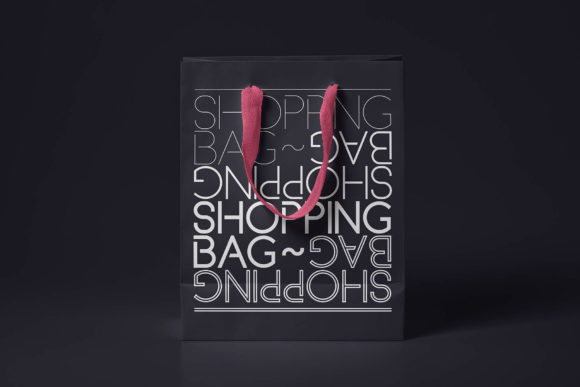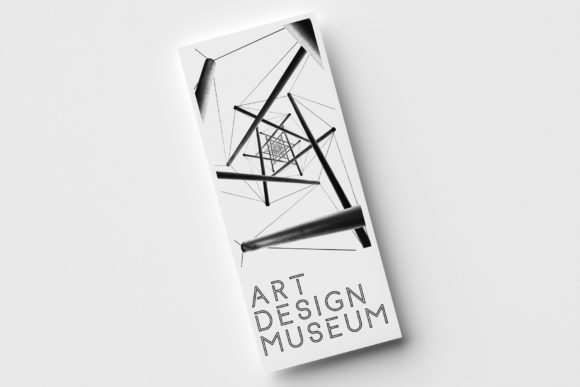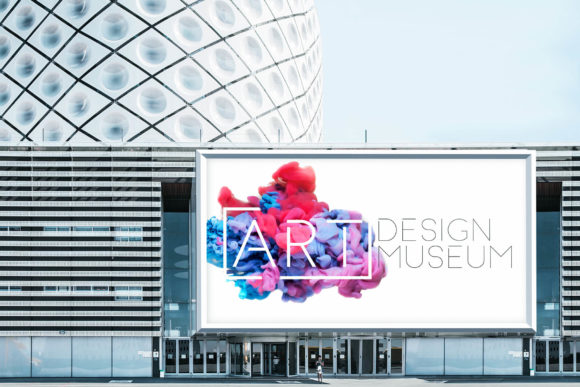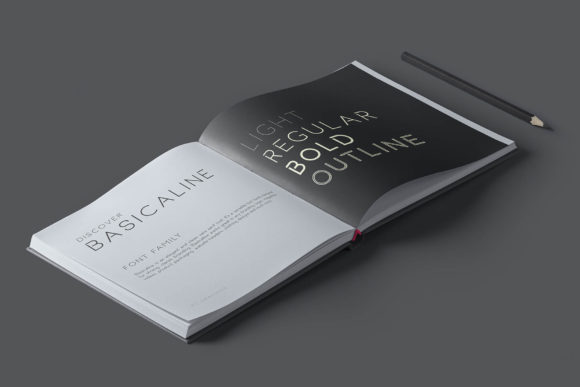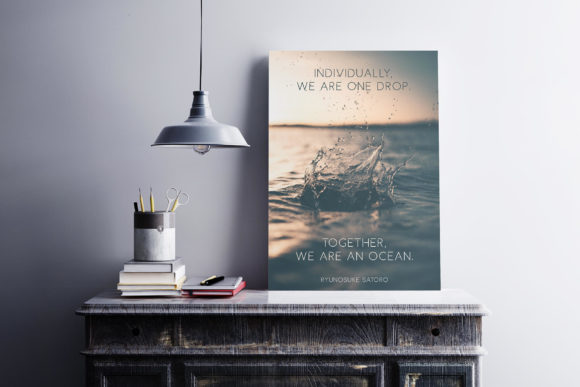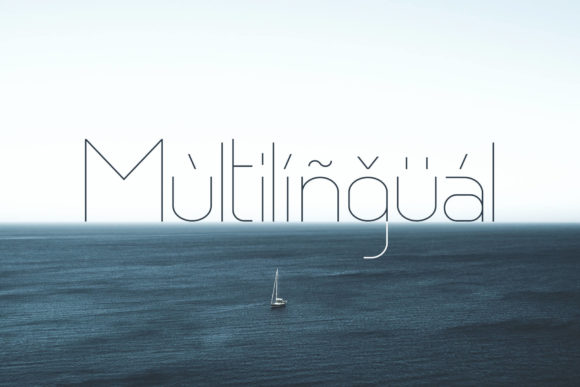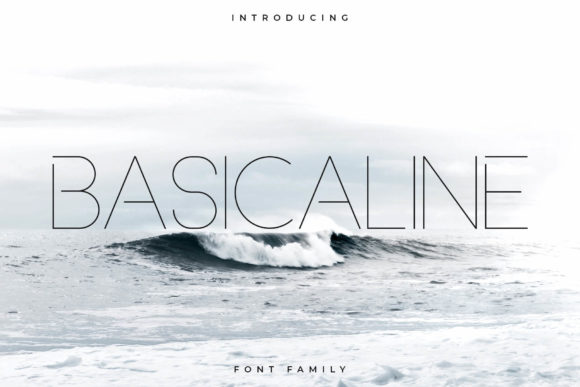
Discover the Elegance of Basicaline Font: A Modern Sans Serif Marvel
Are you on the hunt for a font that embodies simplicity, modernity, and a dash of coolness? Look no further than Basicaline Font. This stunning sans serif font is making waves in the design community, and for good reason. Its light, airy feel and sleek lines make it the perfect choice for designers and crafters looking to elevate their projects with a touch of elegance.
The Essence of Basicaline Font
Basicaline is more than just a font – it’s an experience. With its clean and minimalist design, this font exudes a sense of sophistication and refinement. Its modern sans serif style ensures that your text looks crisp and contemporary, making it ideal for a wide range of applications, from branding and advertising to packaging and digital media.
What Makes Basicaline Stand Out?
- Light and Airy Feel: Basicaline’s light weight makes it perfect for body text, ensuring that your content is easy to read without overwhelming the reader.
- Modern Sans Serif Style: The font’s sleek, modern design ensures that your text looks cutting-edge and current.
- Cool and Elegant: Basicaline’s unique blend of simplicity and sophistication gives it a cool, elegant feel that’s hard to resist.
- Highly Versatile: Whether you’re working on a branding project, creating packaging, or designing digital media, Basicaline is the perfect choice.
Inspiration from Simplicity
One of the most striking things about Basicaline is its ability to inspire creativity through simplicity. In an era where bold and elaborate designs often dominate, Basicaline proves that sometimes, less really is more. Its understated elegance can add a touch of sophistication to even the most straightforward designs, making it a valuable addition to any designer’s toolkit.
Whether you’re a professional designer or a crafter looking to add a personal touch to your projects, Basicaline is an excellent choice. Its versatility and elegance make it suitable for a wide range of applications, including:
- Branding: Use Basicaline to create a lasting impression with your logo and marketing materials.
- Digital Media: Add a touch of sophistication to your website, social media graphics, and digital advertisements.
- Packaging: Stand out on store shelves with elegant, eye-catching packaging.
- Crafting: Add a professional touch to your handmade projects, from greeting cards to DIY crafts.
Basicaline Font is a game-changer for designers and crafters looking for a modern, elegant, and versatile sans serif font. Its light and airy feel, combined with its sophisticated design, make it the perfect choice for a wide range of applications. Whether you’re looking to elevate your branding, add a touch of elegance to your digital media, or simply want to create something beautiful, Basicaline is the perfect tool for the job. So why wait? Discover the simplicity and elegance of Basicaline Font today and take your designs to the next level.